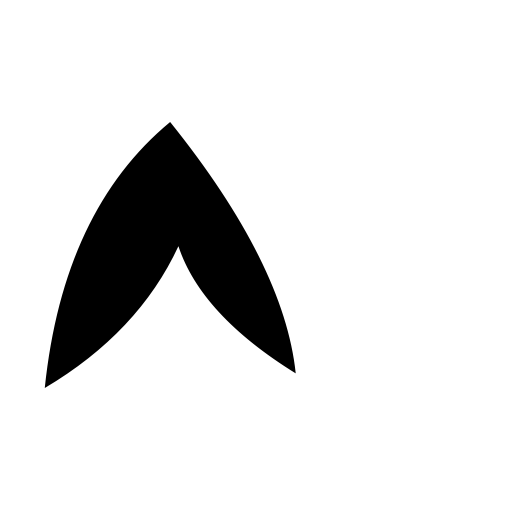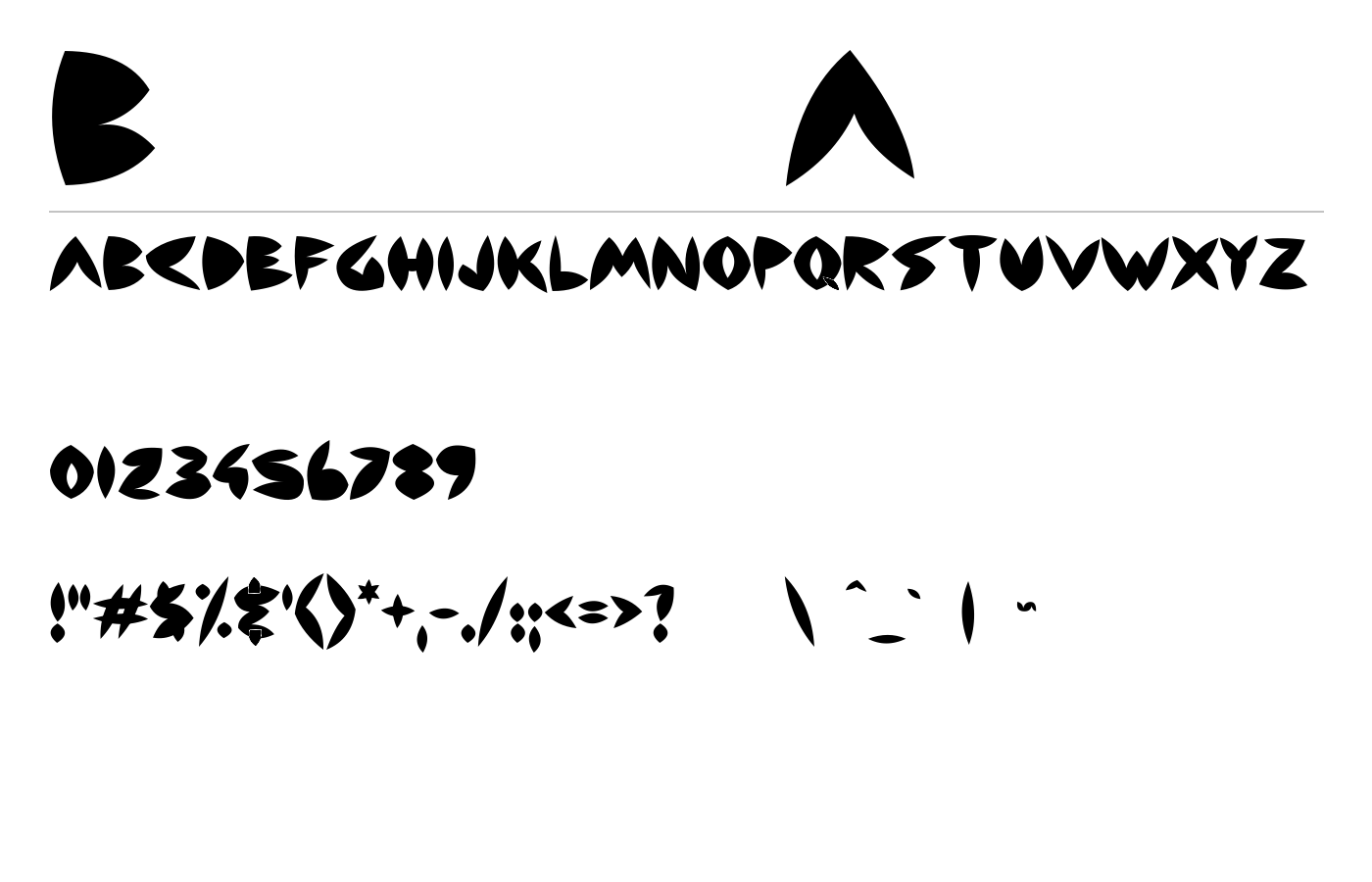
Backside Air is a bold, decorative sans serif font with a strong, playful personality. Its unique angular shapes and thick strokes give it a dynamic, almost futuristic look, making it ideal for eye-catching headlines, logos, and creative projects that want to stand out with a vibrant, modern edge. This font is best suited for designs aiming to convey energy and uniqueness rather than traditional readability.
Backside Air Font
About Backside Air Font